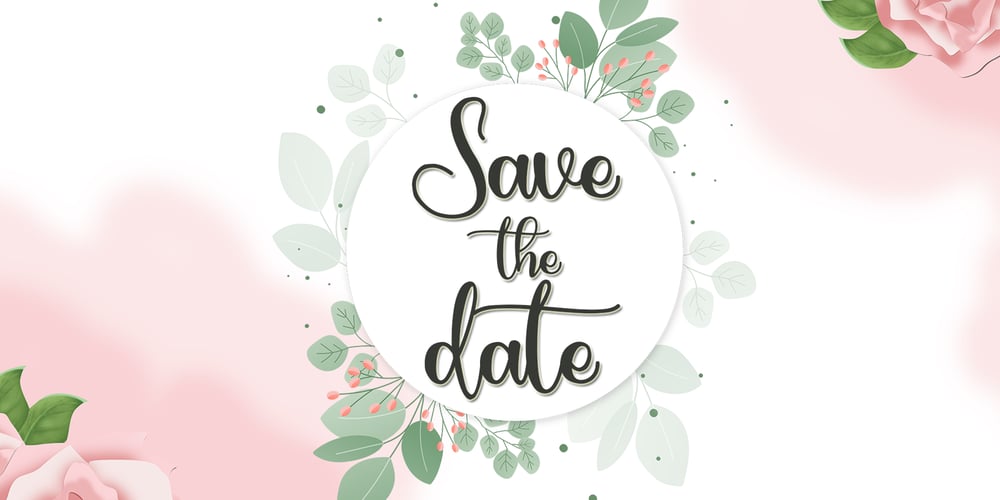
Springbee Font Family was designed by Ahmad Afandi and published by Letterafandi Studio. Springbee contains 1 styles and family package options. Springbee is a dazzling script font. This font is neatly crafted and highly detailed. Whatever the topic, this font will be a wonderful asset to your font library, as it has the potential to enhance any creation.This font is PUA encoded which means you can access all glyphs and swashes with ease!